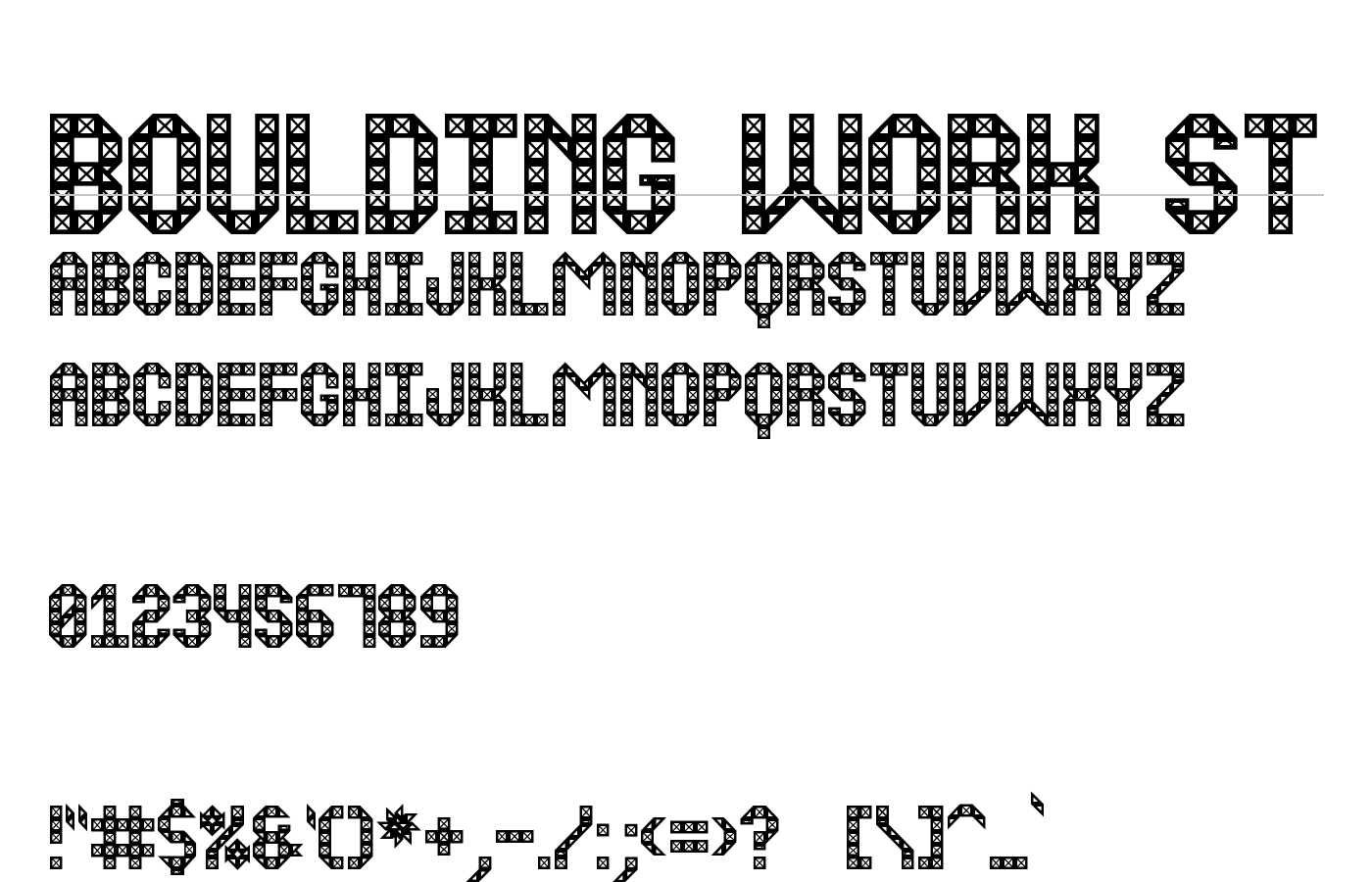
Boulding Work St is a bold, geometric sans serif font with a unique lattice-like pattern filling each character, giving it a highly decorative and industrial feel. Its all-uppercase design, sharp angles, and modular structure make it striking and modern, ideal for logos, headlines, or creative projects that want to convey strength and innovation with a distinctive visual twist. This font works best in display use where its intricate detail can be fully appreciated.
Boulding Work St Font
About Boulding Work St Font